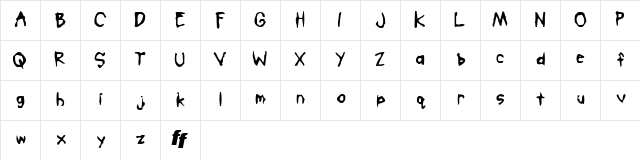
Mobster Regular Free Font
Mobster Regular
Design Context for Mobster
Mobster is a composed and adaptable typeface that performs quietly and consistently across a wide range of design contexts.